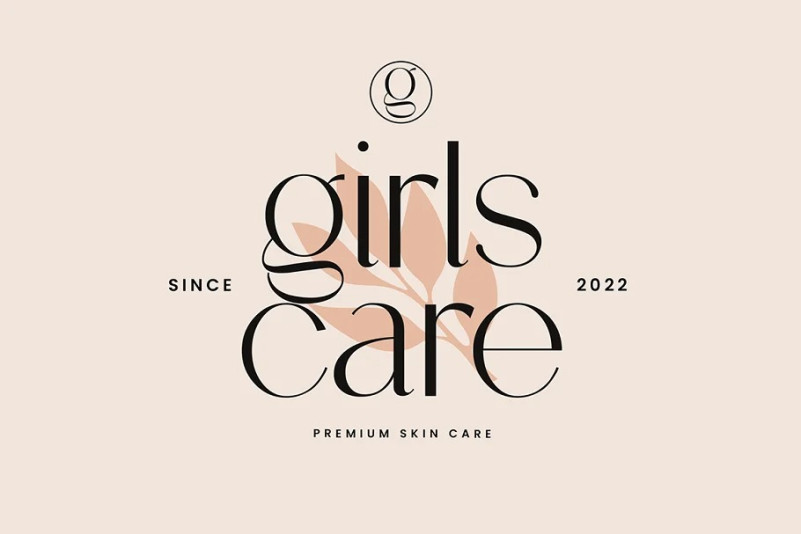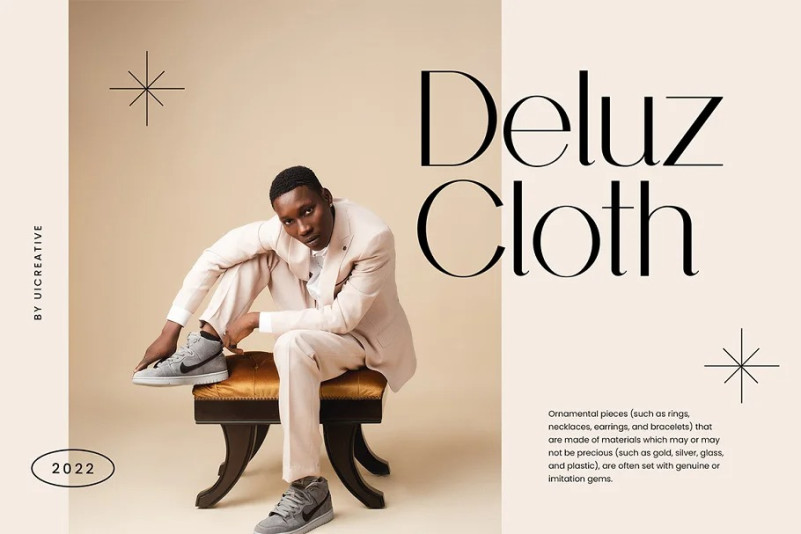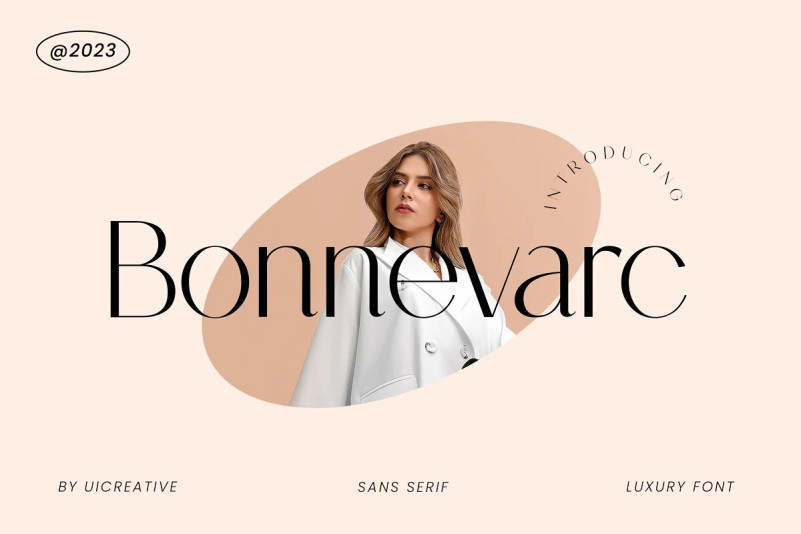
Bonnevarc Font
Bonnevarc Font – Luxury Sans Serif Font. Modern Serif font that feels beautiful classy, elegant, and modern. This font is perfectly suited for a wide variety of projects, such as signature, stationery, logo, wedding, typography quotes, magazine or book covers, website headers, clothing, branding, packaging design, and more. Also, fashion-related branding or editorial design displays both masculine and feminine qualities.